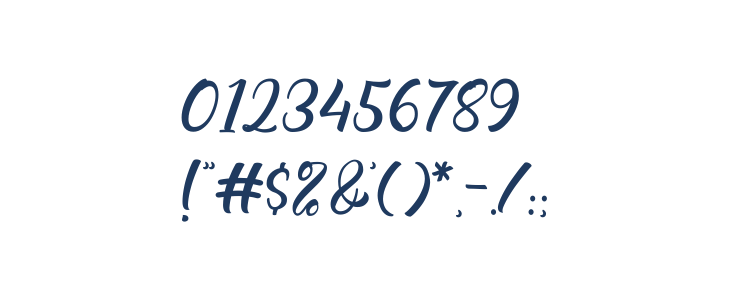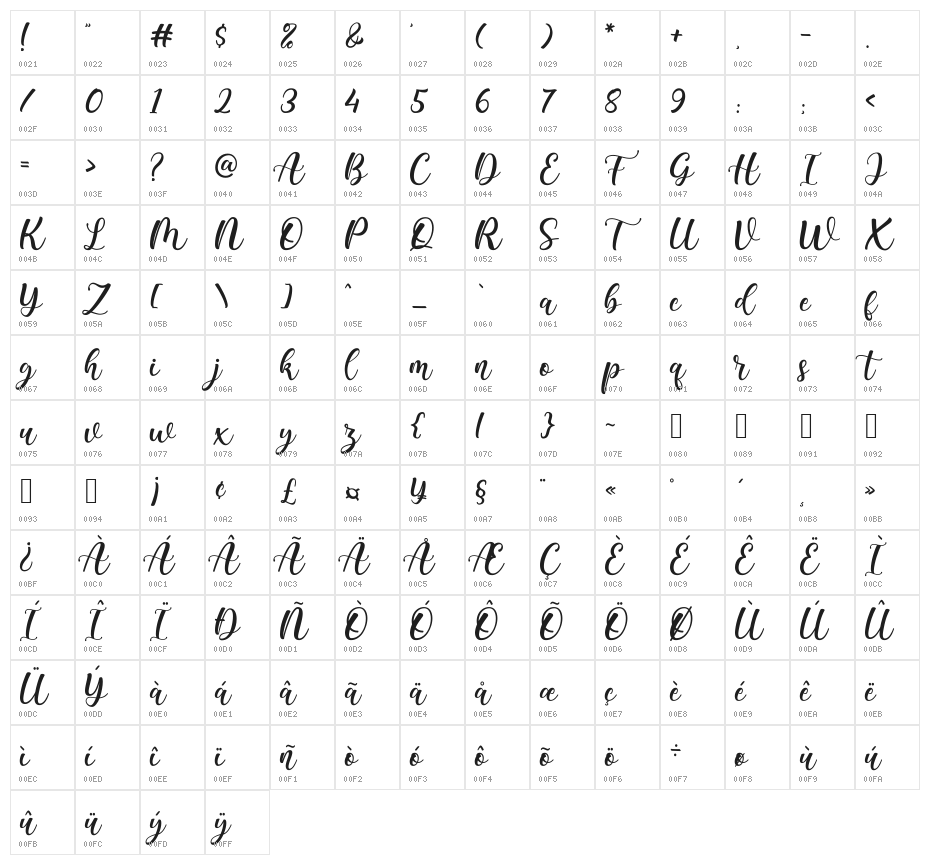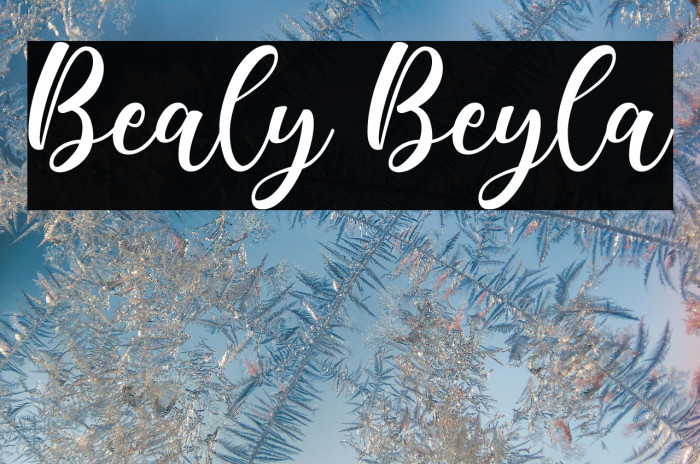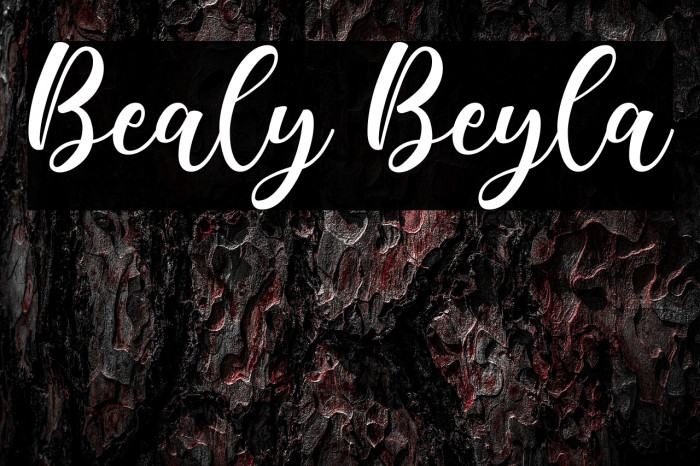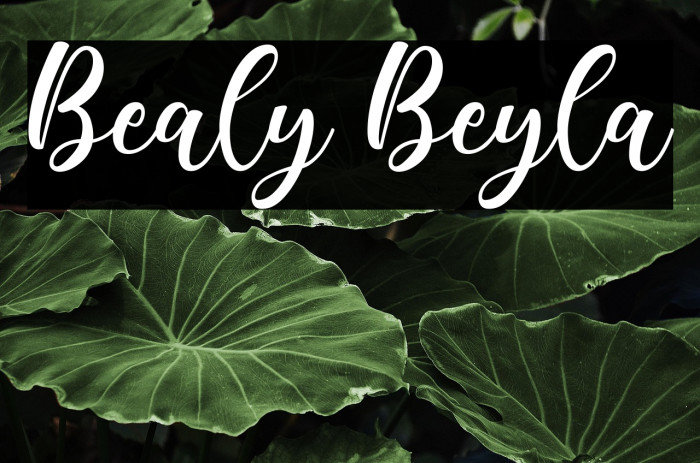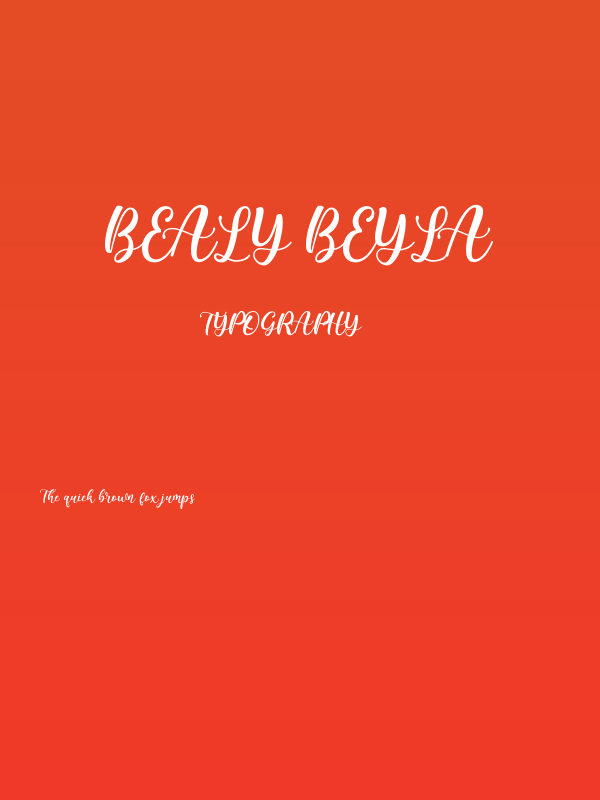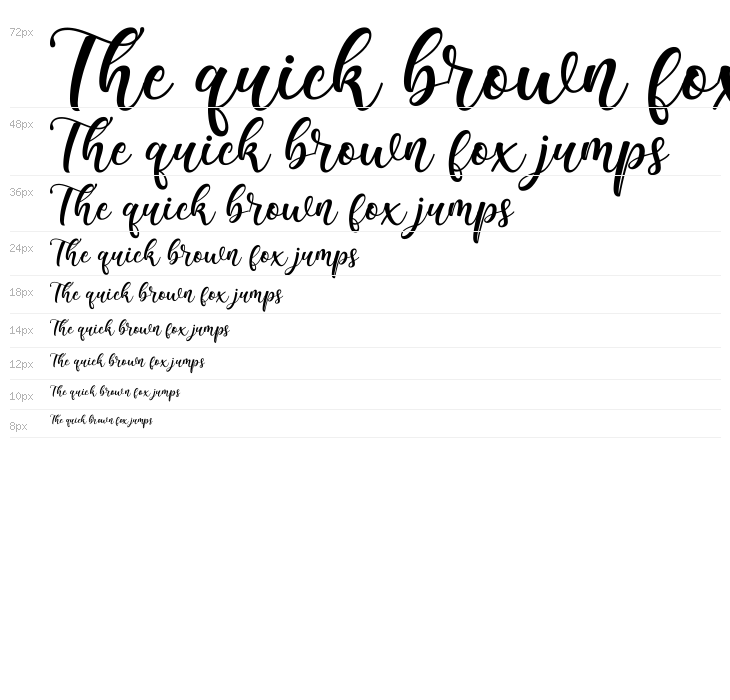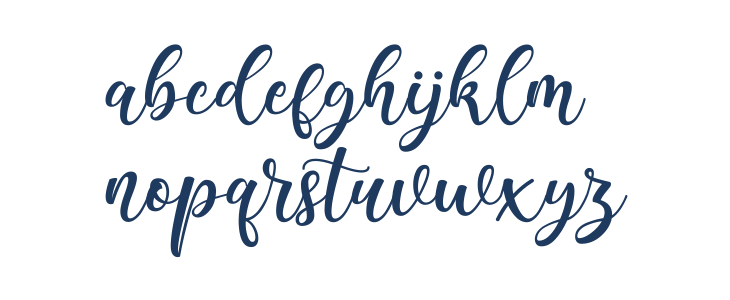
Bealy Beyla Font
Bealy Beyla Description
This font features a lively and flowing script style, characterized by its elegant and cursive letterforms. The uppercase letters exhibit a graceful loop and flourish, while the lowercase letters maintain a consistent and smooth flow, enhancing readability. The numerals are designed to match the script's fluidity, providing a cohesive look across all characters. Special characters are thoughtfully integrated, maintaining the font's overall aesthetic. This font's playful yet sophisticated appearance makes it suitable for a variety of creative projects.
| Proposed Projects | Ideal for wedding invitations, greeting cards, branding, and social media graphics. |